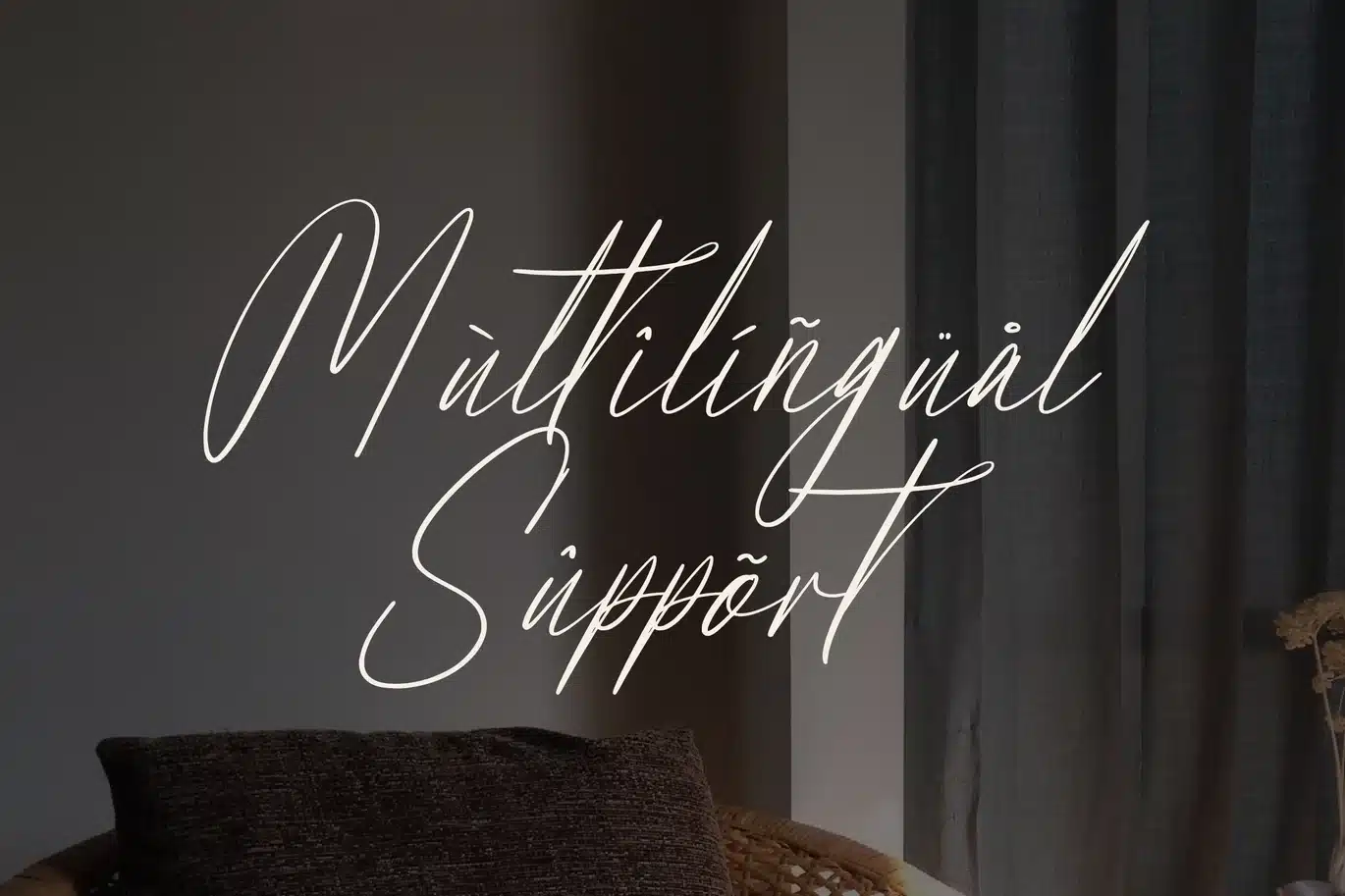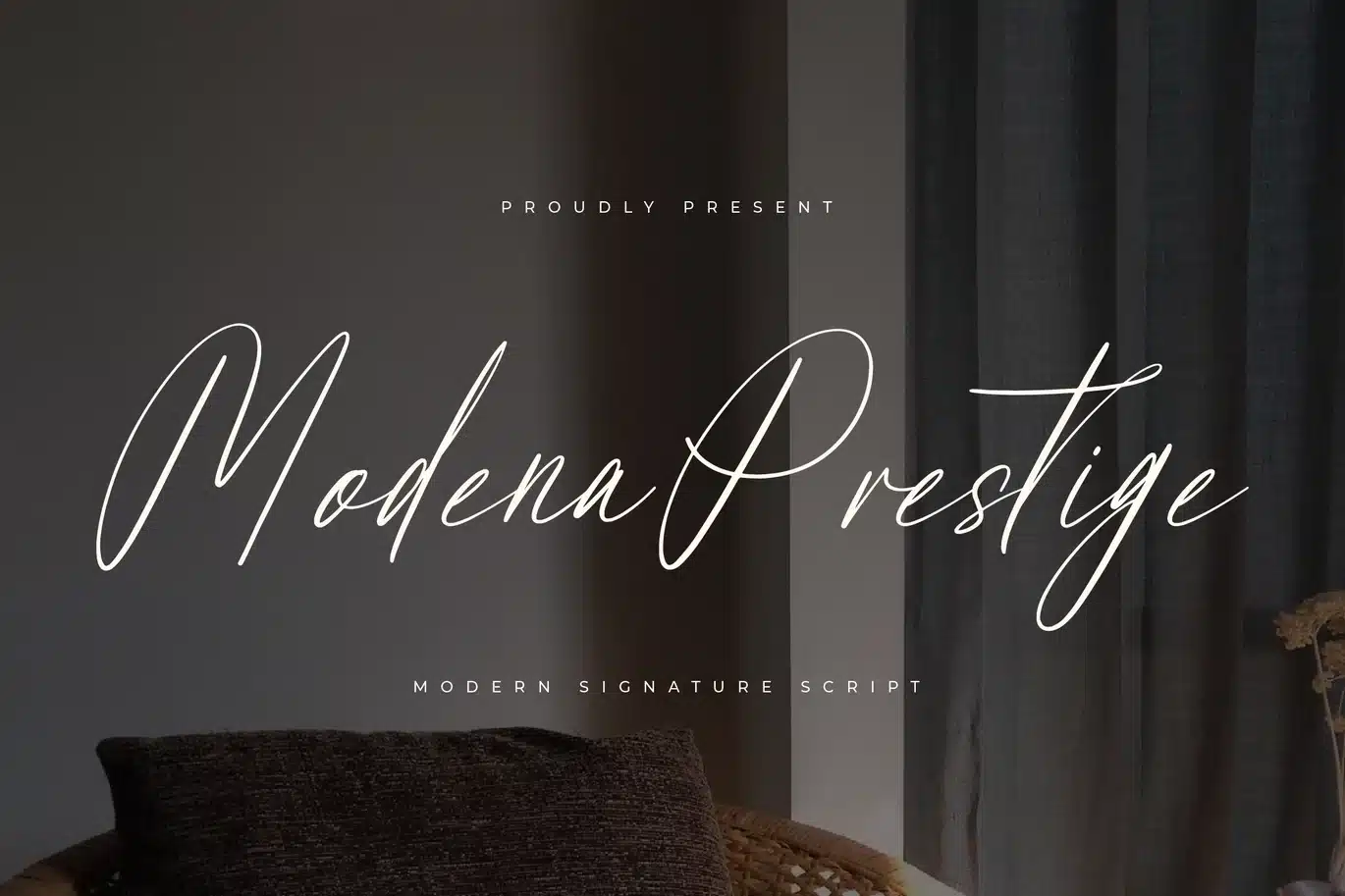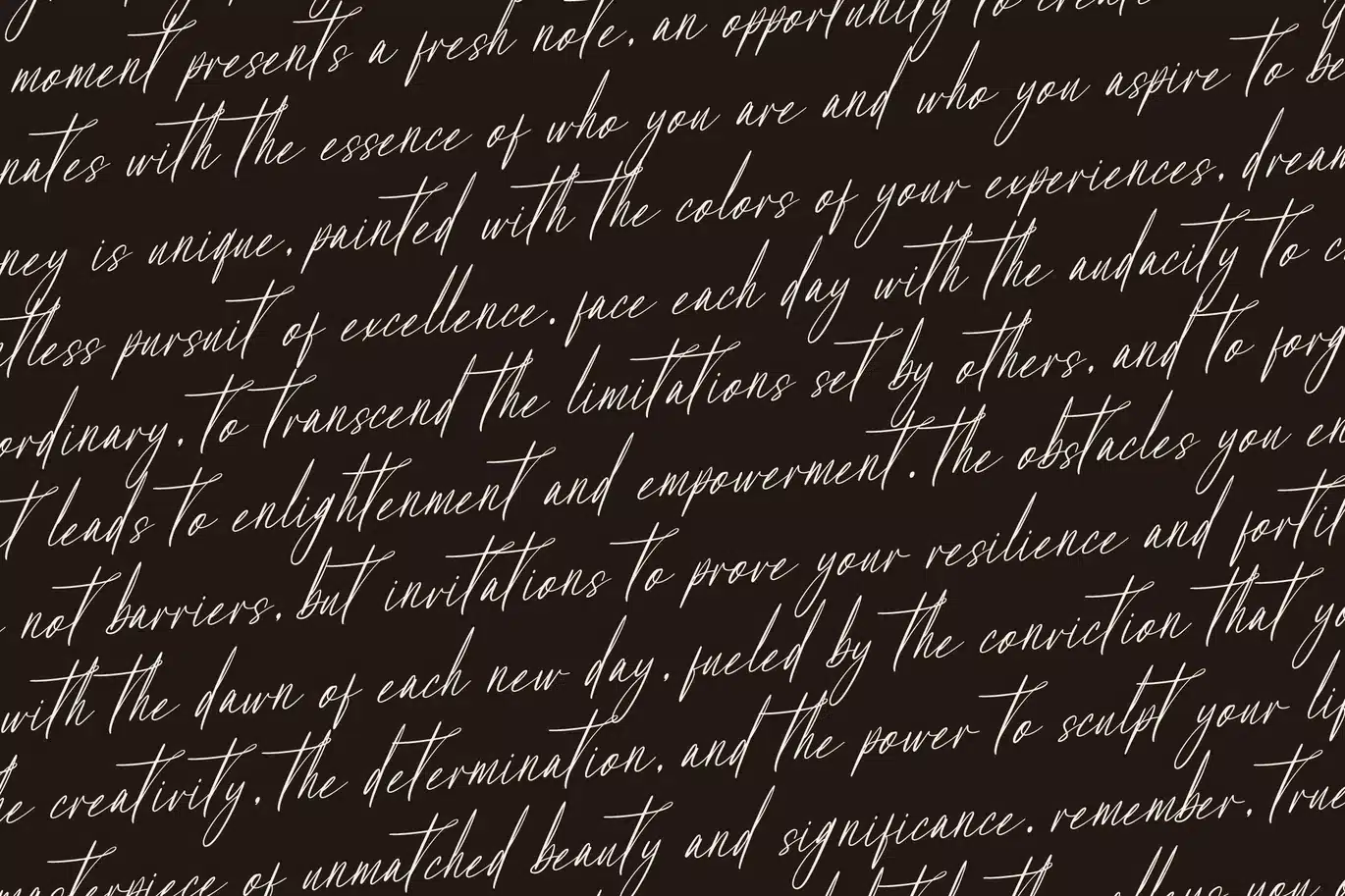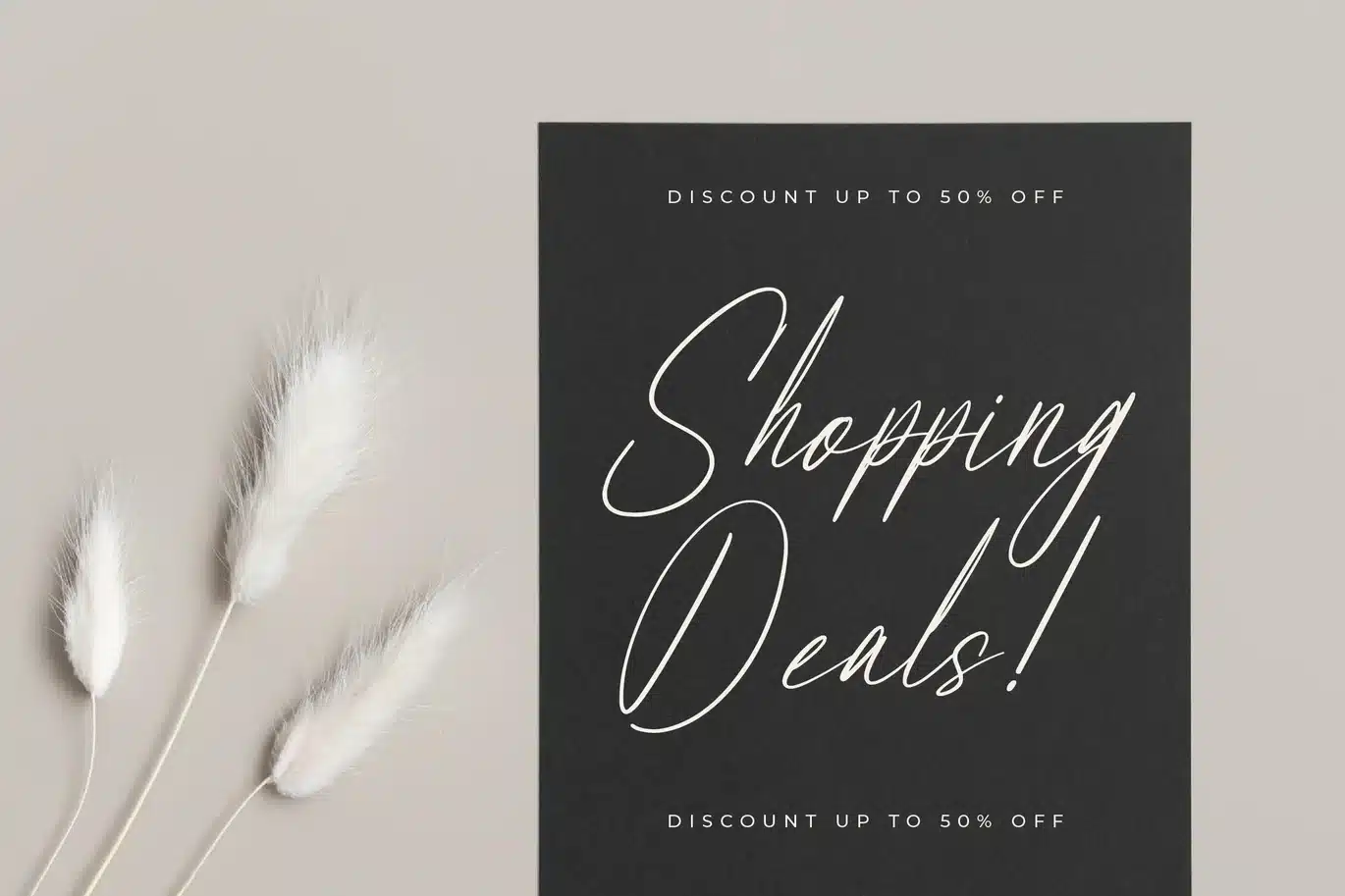
Modena Prestige Modern Signature Script Font
Hi ladies & gentlemen, this is one of our fonts suitable to complement your digital and printed creative products. This font is perfect for posters, social media posts, branding, personal projects, etc.
ITALIC